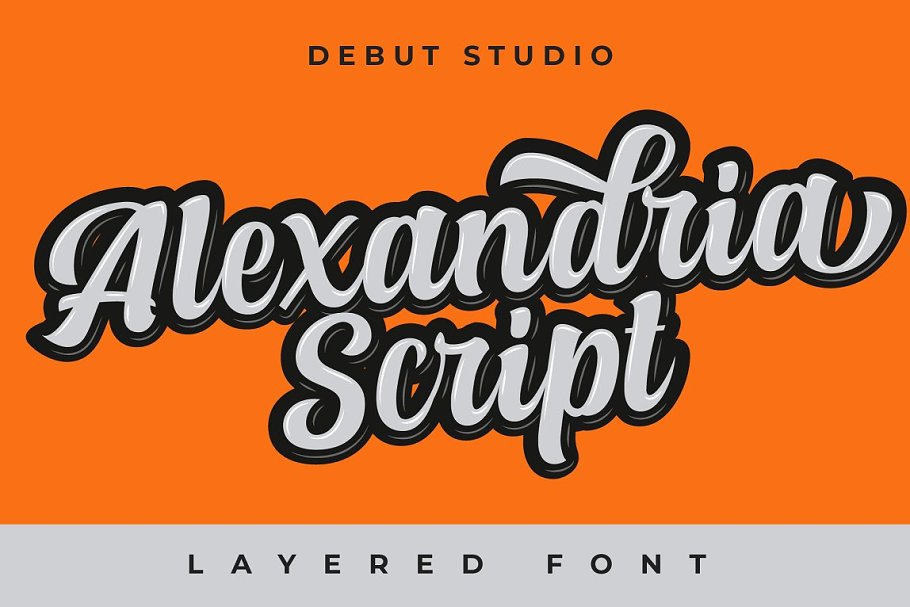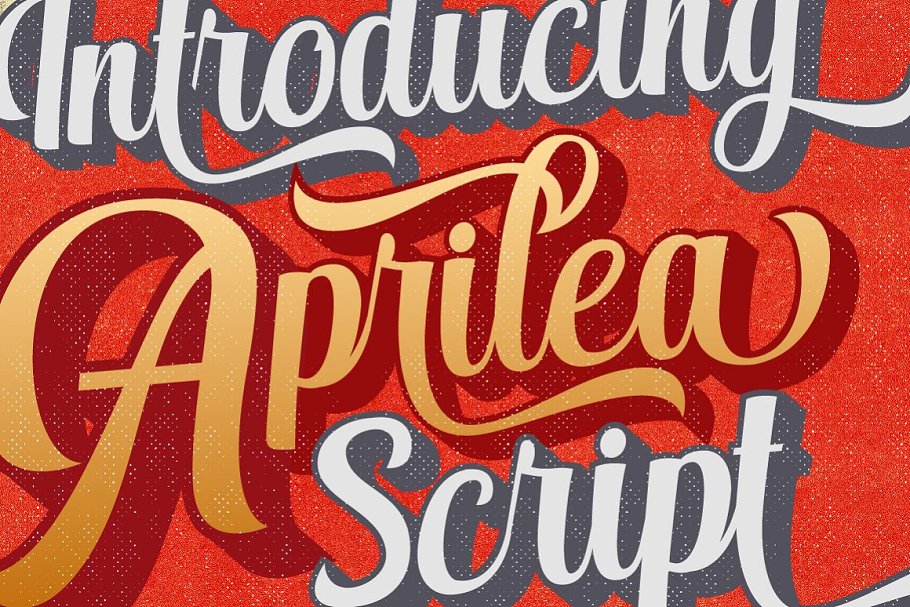
About the THE LAYERED BUNDLE Font
Introducing THE LAYERED FONT BUNDLE, This bundle is the latest product from Debut Studio, contains 12 layered type fonts with the best selling, one of which is Alexandria Script (https://crmrkt, com/oOQAjj),See what they have to say about our product below :⭐️⭐️⭐️⭐️⭐️ pertamax, Beautiful and fun, I must buy this ! – Muhammad Sirojuddin on Alexandria Script⭐️⭐️⭐️⭐️⭐️ FABULOUS FONT – Chantal Brideau on Alexandria Script⭐️⭐️⭐️⭐️⭐️ It took me a couple of days to finalize my decision about purchasing this font, and I’m so glad I did! I absolutely LOVE it! It’s very easy to use which is what I was concerned about
I will be watching for new fonts from this designer, If you’re a crafter, please don’t hesitate, you won’t be sorry, This font is definitely worth it! – Cheryl Gill on Alexandria Script⭐️⭐️⭐️⭐️⭐️ Very easy to use and exactly what I was looking for
The font lays over the black layer perfectly – Amanda Ruiz on Alexandria Script⭐️⭐️⭐️⭐️⭐️ As an artist with a passion for letterforms, these fonts are both beautiful and functional, This collection is versatile and practical! Excellent value for money
Michael Sikirica on Bright Script⭐️⭐️⭐️⭐️⭐️ This is a great font family, Very easy to use, Looks fantastic, Nice job! 🙂 Crystal Kirkman on Michael Script⭐️⭐️⭐️⭐️⭐️ I really like this font, looks great with what I want to do! Thanks David Branton on Panterick Script⭐️⭐️⭐️⭐️⭐️ LOVED this font